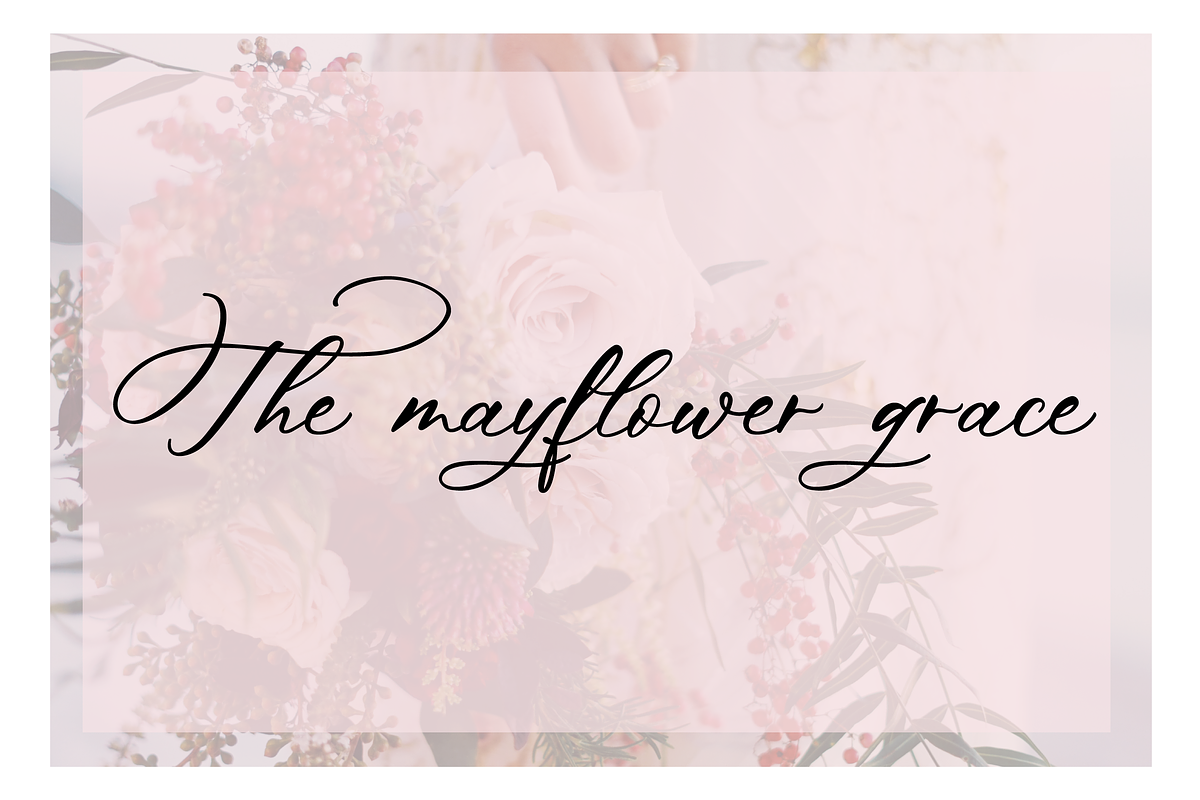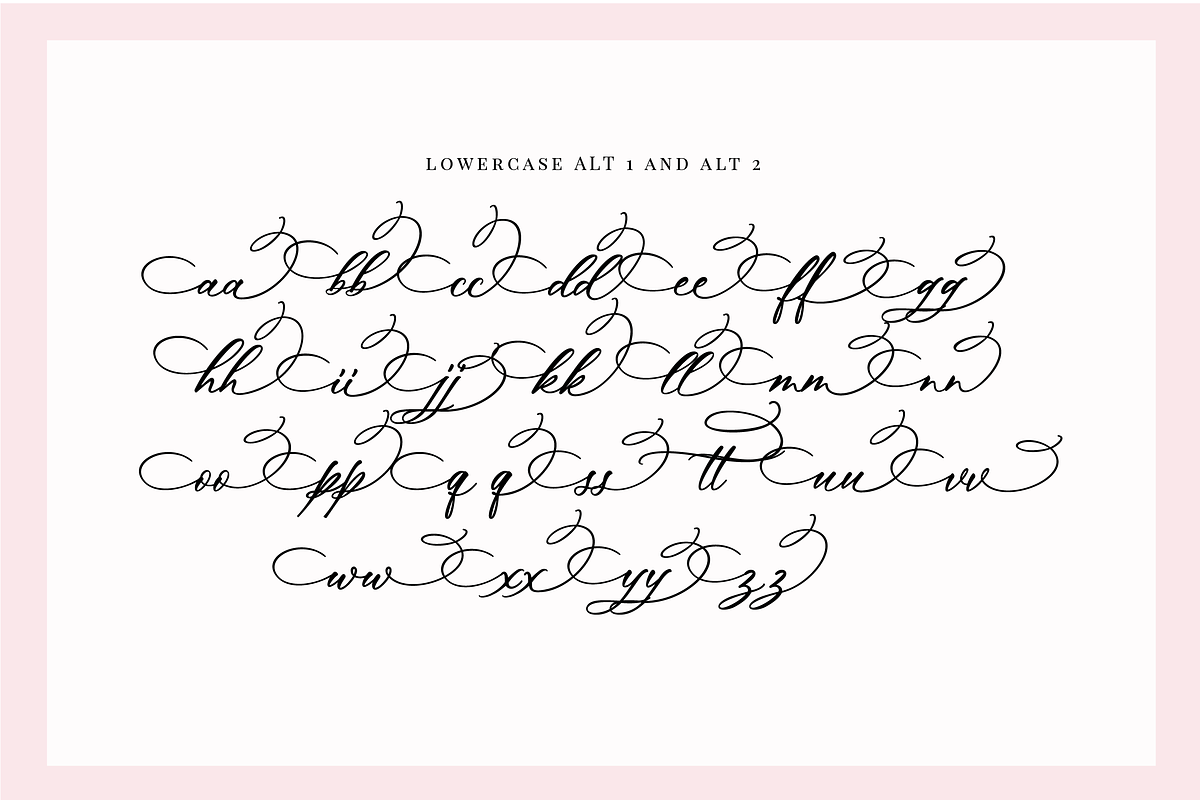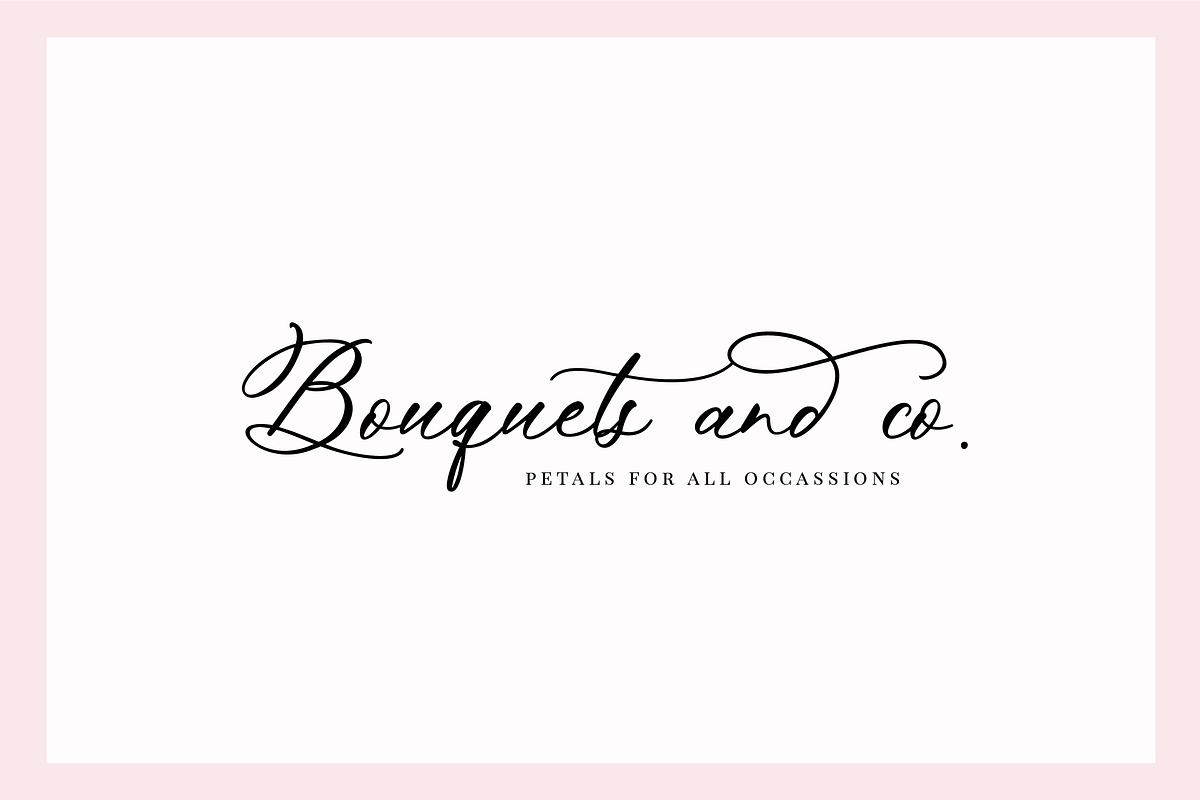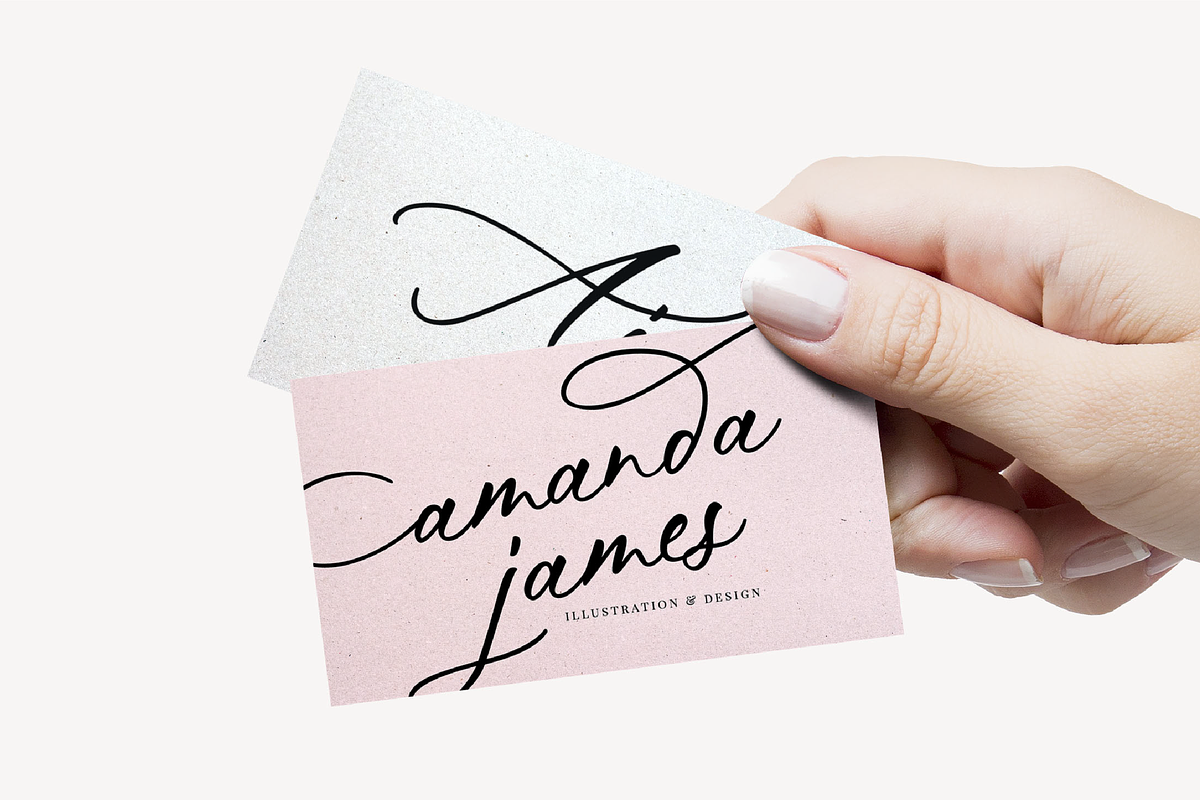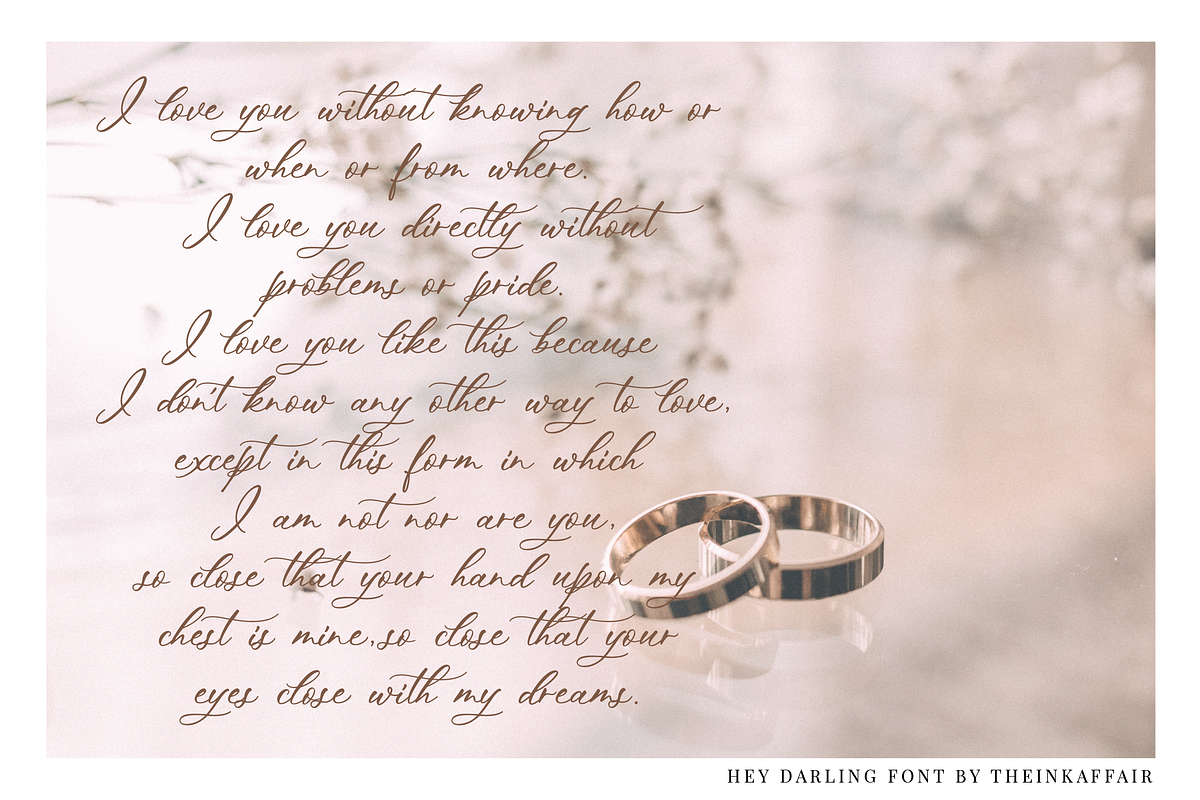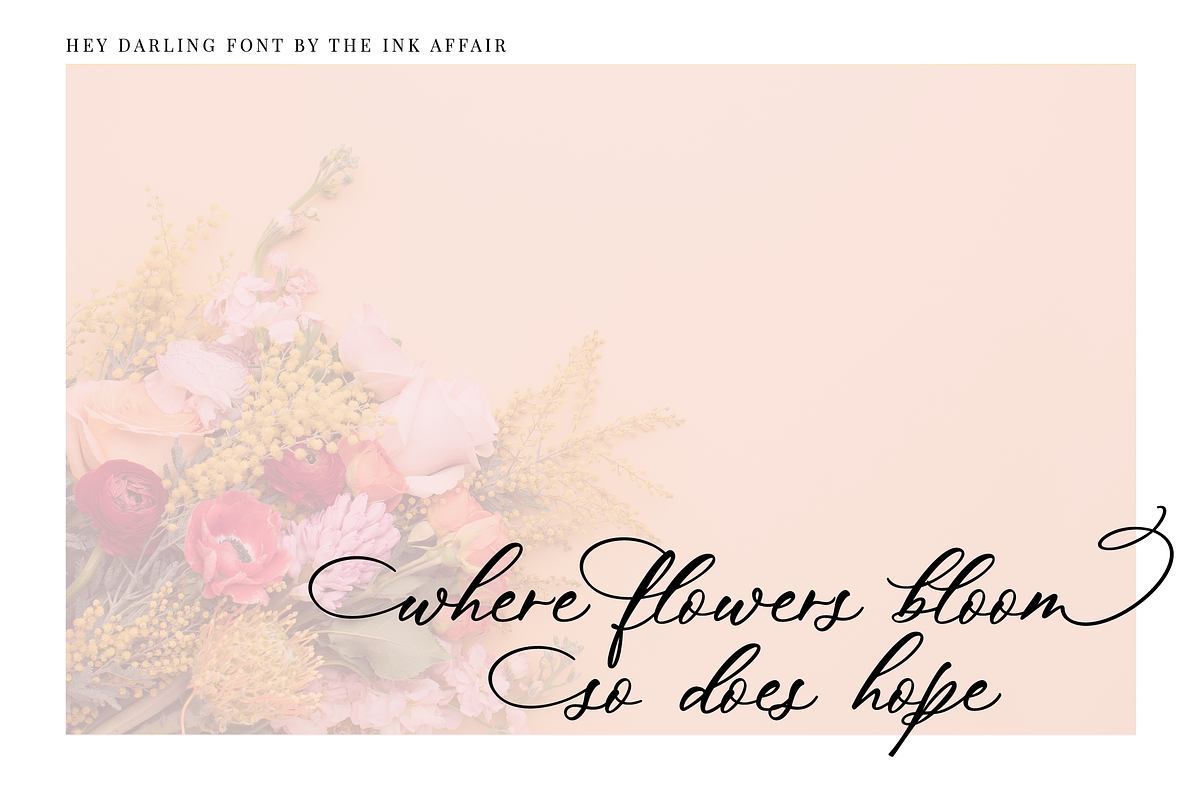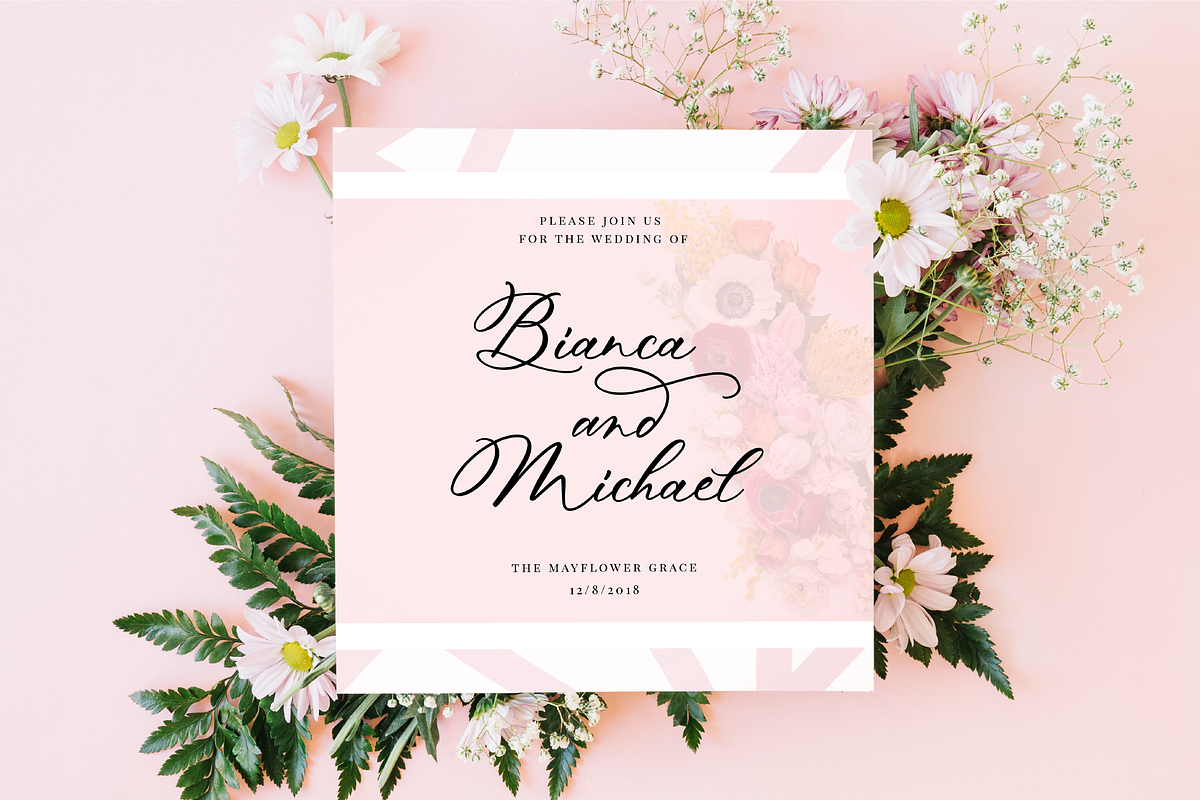
Hey Darling Calligraphy Script Font
Introducing, Hey Darling, a gorgeous hand-lettered luxury script font. This beautiful calligraphy font is perfect for wedding invites, logos, branding, event invites, social media posts and so much more!
Hey Darling includes a full set of gorgeous uppercase and lowercase letters, numbers, punctuations and international support. It also includes 2 sets of lowercase letters with beginning and ending flourishes to add style to your designs.